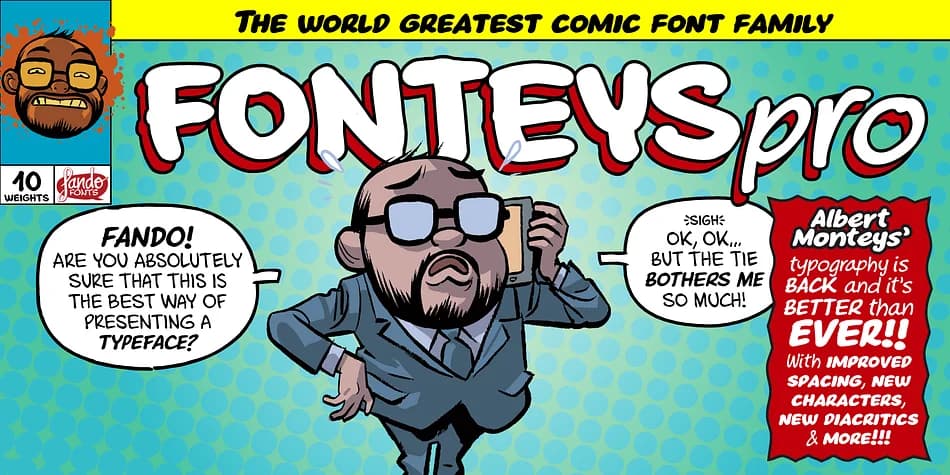
This is the font when you need energy and genuine personality radiating from the page. FonteysPRO, created by Fando Fonts, is an informal typeface that captures the spontaneous feel of hand lettering, with multiple character variants for each letter that keep the whole piece feeling fresh and authentically drawn.
The design shines brightest in comic book lettering, indie graphic novels, and DIY zine layouts, where that spontaneous handwritten texture makes the real difference between forgettable and memorable work. It also performs well for game UI text, playful branding for small independent studios and creative entrepreneurs, and children's book covers that demand personality and warmth. Because each letter includes several alternate forms, you can mix and match them throughout a single piece to avoid the stiff, repetitive look that happens when hand lettering relies on just one version of each character. That flexibility alone makes this useful for anyone building a brand around informal, expressive type.
FonteysPRO covers Latin, Cyrillic, Greek, and Vietnamese, so it delivers the same expressive personality across multilingual projects without compromise. Pair it with a neutral sans-serif for body copy to keep longer passages readable, letting the font do its expressive work in headlines and display settings where it truly shines. You'll find it on Creative Fabrica ready to bring that hand-drawn energy into your next project.
FonteysPRO Font is a decorative font that shines as a display or heading face. Pair it with a clean sans-serif or serif font for body text β the contrast creates a clear hierarchy while the two styles stay balanced and easy to read.